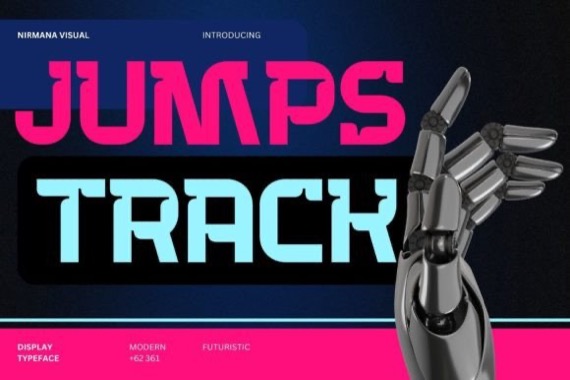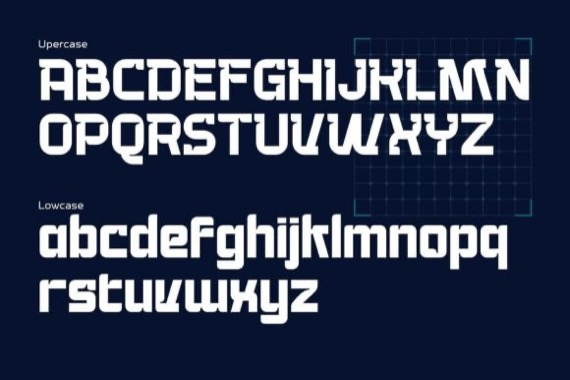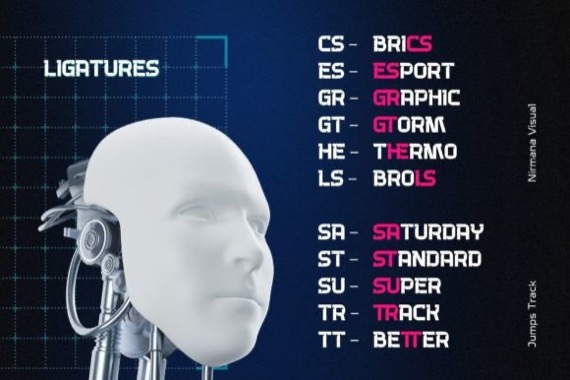
Jumps Track is a modern and cutting-edge Sports techno font that was created by Sigit Dwipa, and designed to add a futuristic and sleek aesthetic to your designs. With its sharp lines, geometric forms, and high-tech vibe, this font is perfect for projects that require a modern and forward-looking visual identity.
Jumps Track Display Font